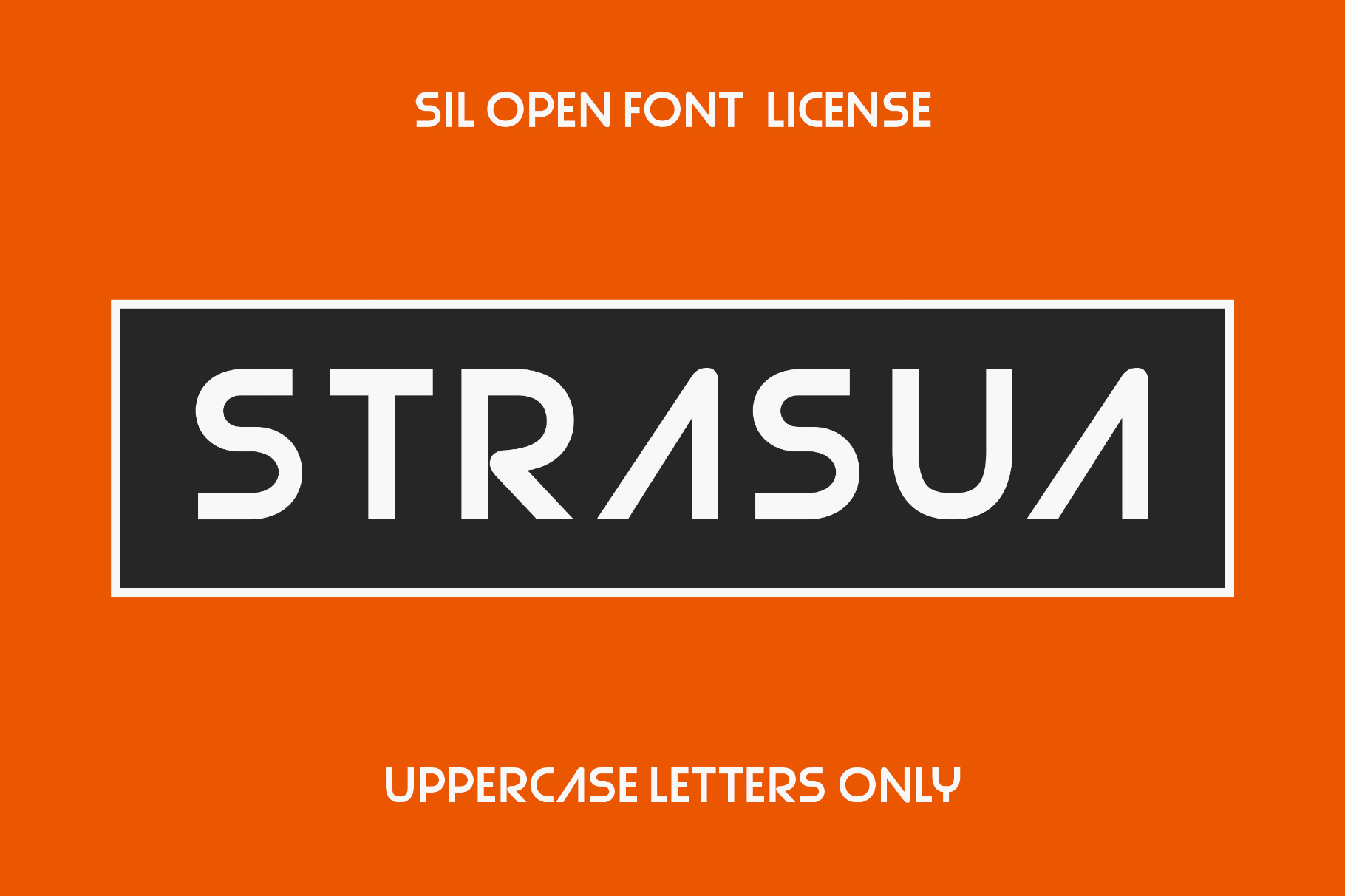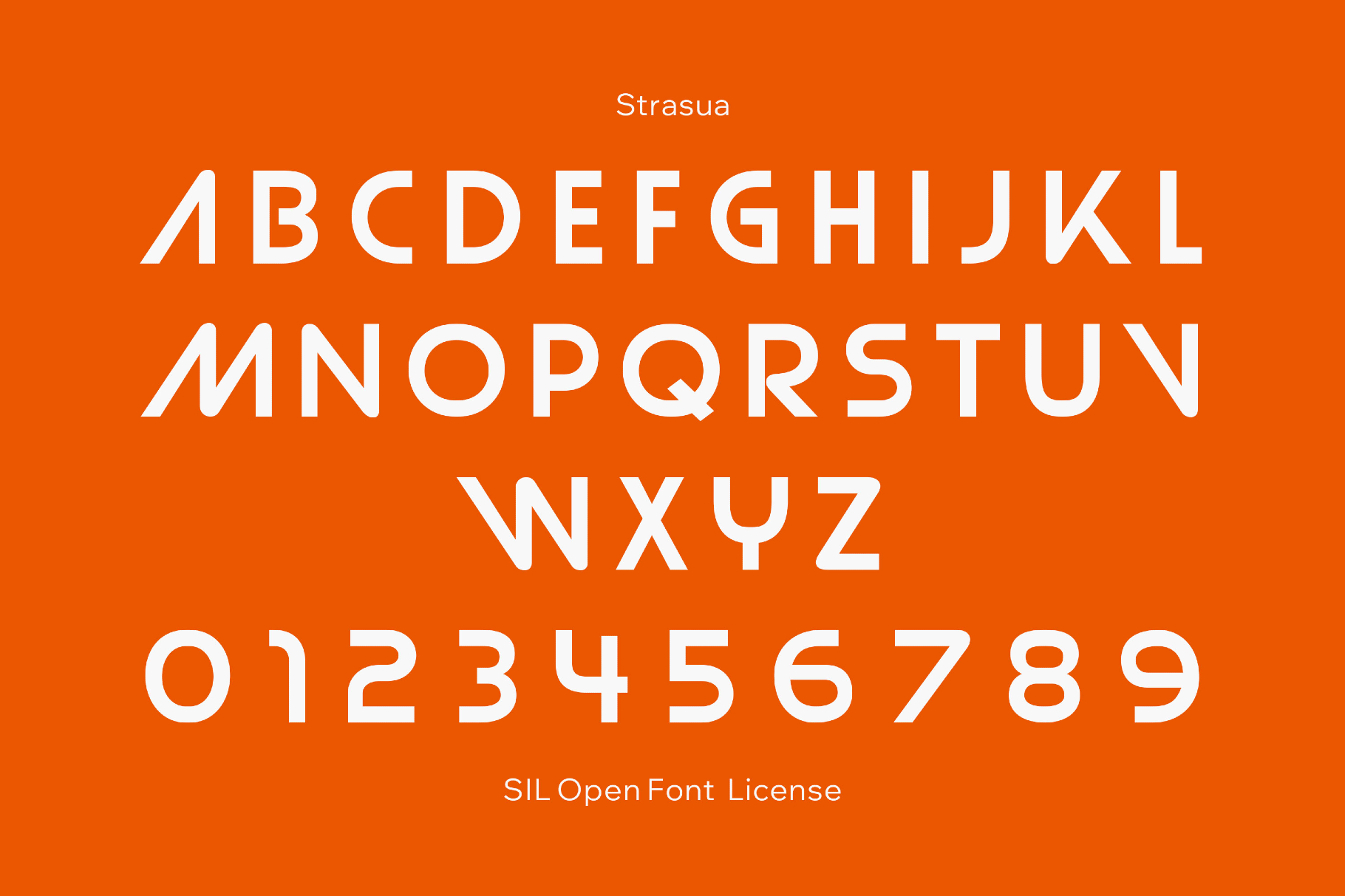
Strasua - 70s Industrial Font
Strasua
Strasua's roots in 1970s industrial graphics and aerospace signage show up in the clean geometry and generous spacing. The letterforms are structured but not rigid; the rhythm is steady and composed, so the fonts are designed to guide rather than overwhelm.
It works well for editorial headlines, game titles, album covers, merch graphics, motion frames, tech branding, cultural posters, identity systems, packaging, exhibition graphics, and wayfinding-inspired layouts.
- uppercase letters;
- numbers, punctuation, and symbols;
- multilingual support across an extended Latin script.